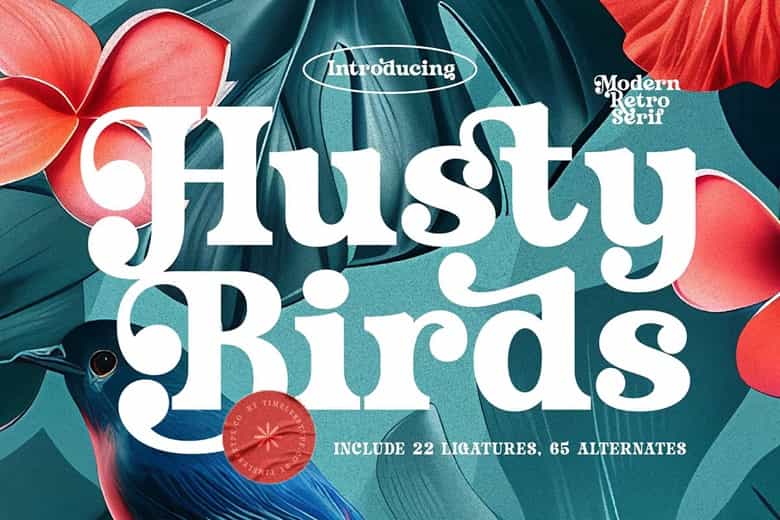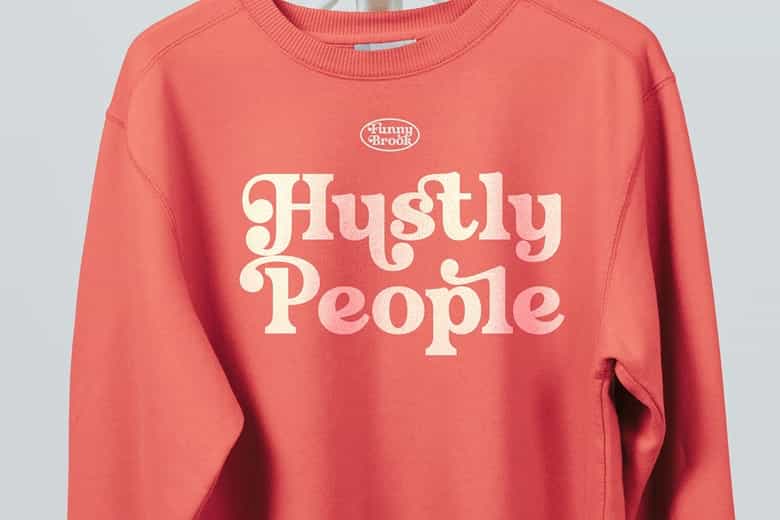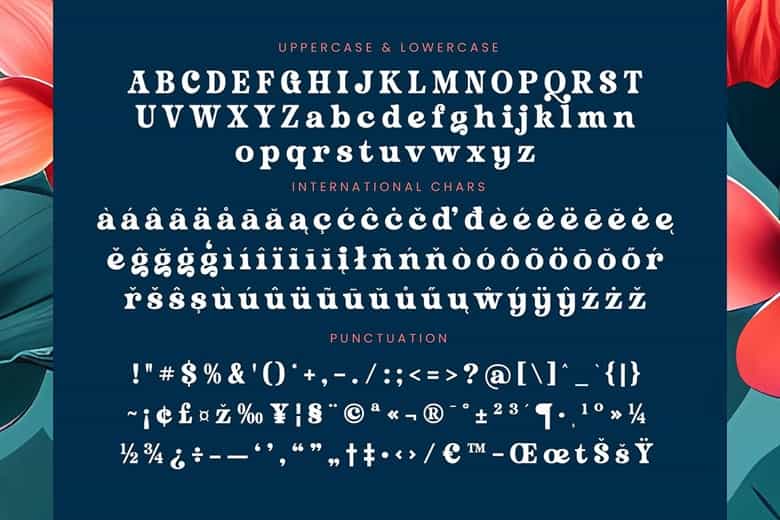
Husty Birds is a modern retro serif font designed by timelesstype.co with elegant touch.. Suitable for any projects such as: for logos, branding projects, homeware designs, product packaging, mugs, quotes, posters, shopping bags, t-shirts, book covers, name card, invitation cards, greeting cards, label, special events, and all your other luxury and beautiful projects.